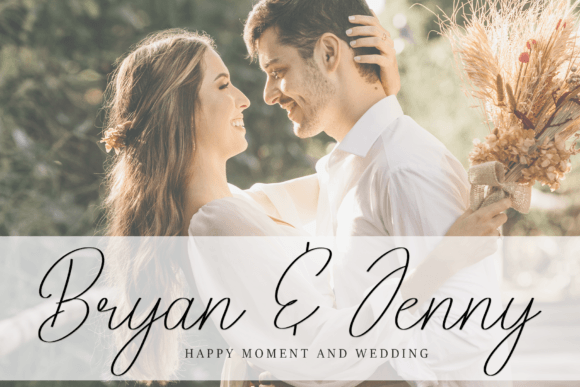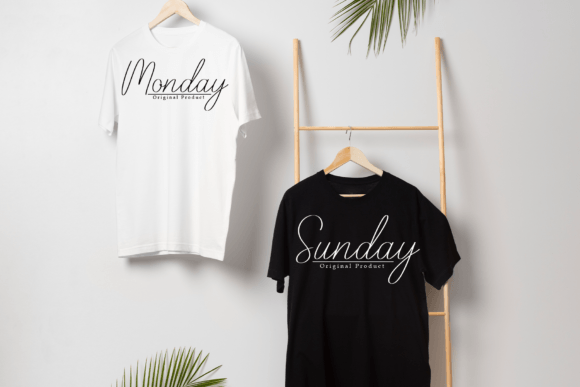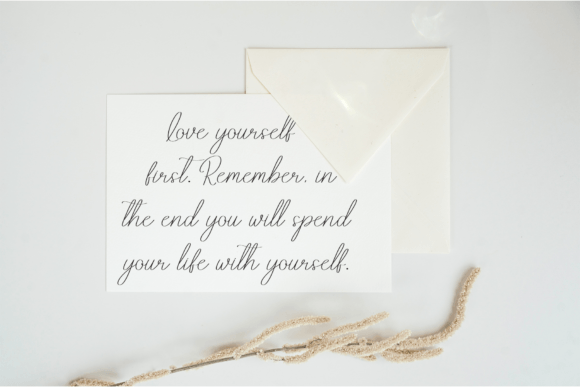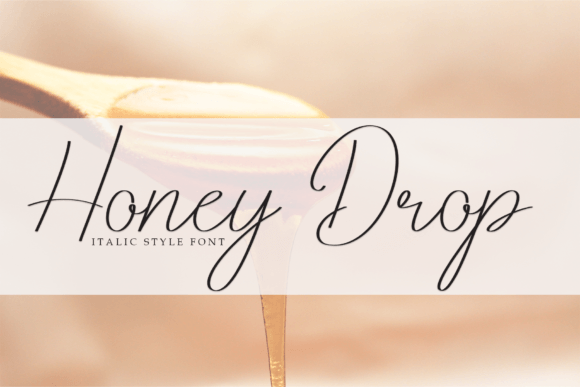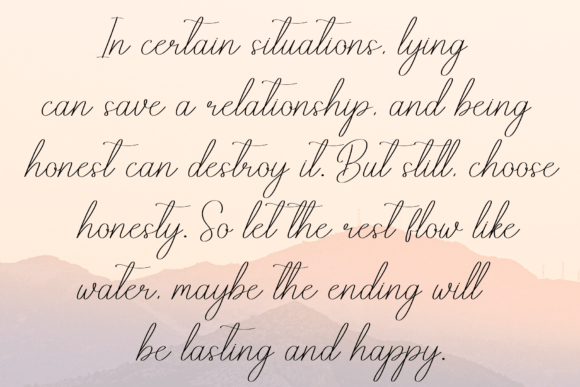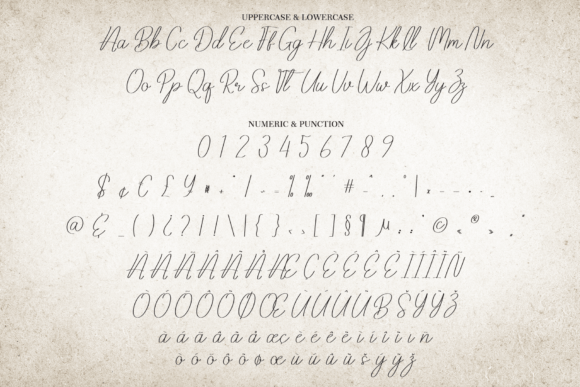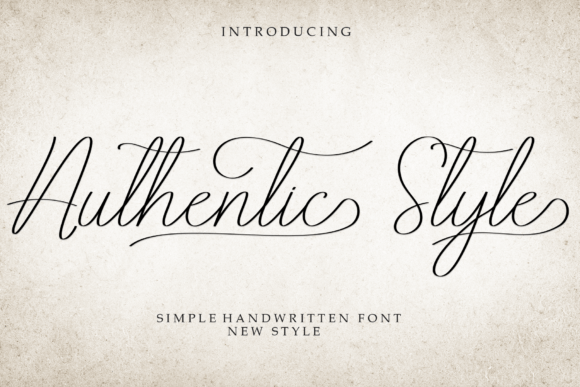
The Quest for the Perfect Font: Discovering Authentic Style
I’ll never forget the time I was working on a wedding invitation project for a dear friend. I had the design concept nailed, but something was missing – the perfect font. I scoured the internet, tried out countless fonts, but none seemed to capture the sweet and friendly vibe I was looking for. That was until I stumbled upon Authentic Style, a beautiful handwritten font that instantly became the perfect fit.
A First Impression: What I Love About Authentic Style
Authentic Style is a sweet and friendly handwritten font that’s perfect for adding a lovely touch to any design. Here are some things I love about it:
- ✨ Cute and Fun: Authentic Style is the perfect font for designers who want to add a playful touch to their designs.
- ✅ Versatile: This font is ideal for writing wedding invitations, cards, or any other design that might need a lovely touch.
- 💕 Emotional Connection: Authentic Style has a way of evoking emotions and creating a connection with the reader.
The Not-So-Perfect: A Few Quirks and Limitations
While Authentic Style is an amazing font, it’s not without its quirks. Here are a few things to keep in mind:
- 🤔 Limited Multilingual Support: Authentic Style may not support all languages, so be sure to check the character set before using it for a multilingual project.
- ⚠️ Not Suitable for Body Text: Due to its decorative nature, Authentic Style is best used for headings, titles, and short paragraphs.
Authentic Style supports OpenType features, glyphs, and stylistic alternates that can enhance your designs. Here are some tips on how to access these features:
- Stylistic Alternates: Swap out similar characters for a more varied look.
- Glyphs: Access special characters, such as ligatures and ornaments.
The Story Behind Authentic Style
Authentic Style was designed with love and care by a talented type designer who wanted to create a font that would bring a smile to people’s faces. The designer’s inspiration came from traditional handwritten fonts, with a modern twist.
Here are some frequently asked questions about Authentic Style:
- Q: What is Authentic Style?
- A: Authentic Style is a sweet and friendly handwritten font perfect for adding a lovely touch to designs.
- Q: Is Authentic Style suitable for body text?
- A: No, Authentic Style is best used for headings, titles, and short paragraphs due to its decorative nature.
- Q: Does Authentic Style support OpenType features?
- A: Yes, Authentic Style supports OpenType features, glyphs, and stylistic alternates.